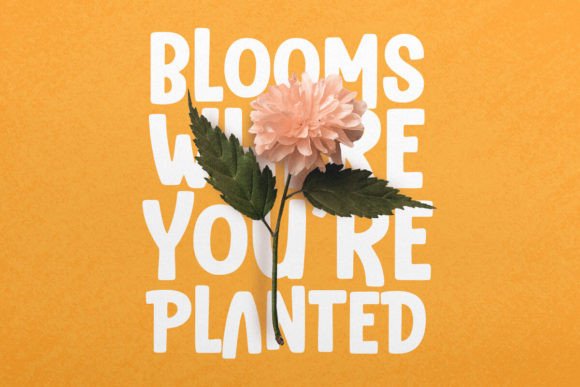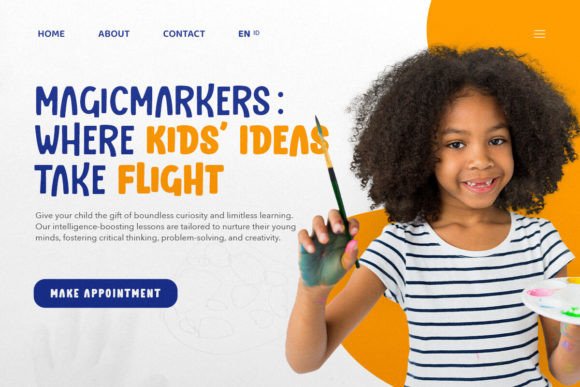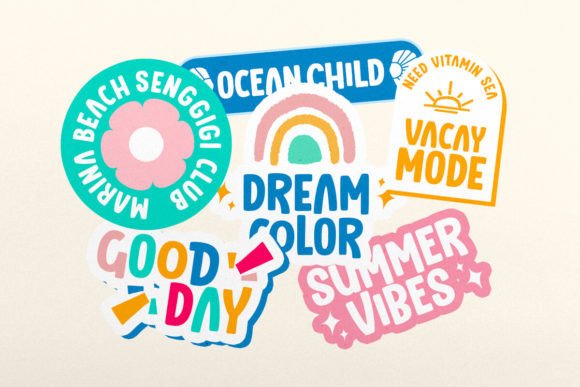
Introduction to Dreambox Font
Do you remember the moment when you stumbled upon the perfect design element that brought your creative project to life? For many designers, that moment is what makes all the hard work worth it. And today, we’re excited to share with you a design resource that’s sure to spark that same feeling – the Dreambox Font.
With its playful and whimsical nature, the Dreambox Font is a high-quality addition to any design project. Whether you’re working on a children’s book, a playful branding, or a party invitation, this font is sure to bring a touch of fun and creativity to your work. And the best part? It’s available for free download, making it an accessible design resource for designers of all levels.
Dreambox Font
- High-quality design resource for creative projects, featuring a unique and stylish aesthetic.
- Features a clean and modern design, with a high resolution of 300 DPI, perfect for use in print and digital applications.
- Designed to be highly legible, making it an ideal choice for body text, headings, and titles in various creative projects.
Honest Review: Dreambox Font
As a designer, I’m always on the lookout for high-quality design resources to elevate my creative projects. Recently, I stumbled upon the Dreambox Font, and I’m excited to share my honest review with you.
- High-quality font with a unique, modern aesthetic
- Transparent background, making it easy to customize and integrate into any design
The Dreambox Font is a fantastic addition to any design resource library. Its versatility and high-quality design make it an excellent choice for a wide range of creative projects.
- Only available in a limited number of font weights and styles
- No extensive character set, which may limit its use in complex designs
Overall, I’m impressed with the Dreambox Font, and I’d definitely recommend it to designers looking for a high-quality, modern font for their creative projects.
How to Use Dreambox Font
The Dreambox Font is a high-quality design resource perfect for any creative project. With its unique and stylish design, it can add a touch of sophistication to your work.
Tips and Best Practices
For the best results, use the Dreambox Font on a transparent background to avoid any distractions. Experiment with different font sizes and styles to create a unique and eye-catching design.
The Dreambox Font is ideal for:
- Creating invitations and event materials
- Designing logos and branding materials
- Developing marketing materials and advertisements
Alternatives to Dreambox Font
When compared to Dreambox Font, Great Vibes has a more modern and edgy look, making it a great choice for designs that require a bold and dynamic feel. However, it may not be as versatile as Dreambox Font, which offers a wider range of styles and variations.